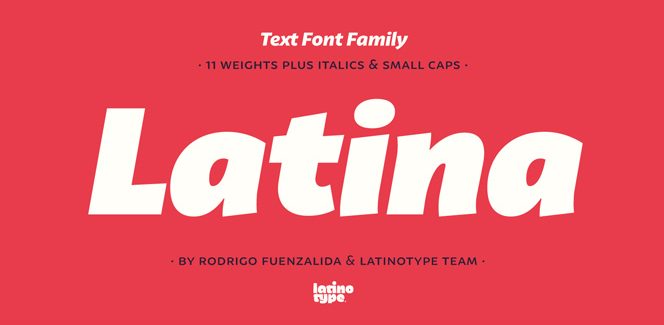
Latina font family – another typographic lesson by Latinotype
It is safe to say that now the admirers of the type design art are living in something like a golden age. The fast development of technology has led to a significant rise of the interest in typography and the great chance to witness the work of countless designers and foundries. However, there are some foundries that have turned their names into a guaranty for the quality of their work. One such foundry is the famous Chile based Latinotype. Its designers are renowned for their talent and professionalism but we think that the most remarkable side of their work is the way they work as a team.
Their last release – Latina font family, is another example of their team spirit. It is designed by Rodrigo Fuenzalida with the help of the whole team. It is a typeface designed especially for continuous reading and longer texts. Although that its forms are obviously inspired by some calligraphic samples, this influence is subjected to the desire to make Latina as neutral, highly legible and elegant as possible. Still, this combination between calligraphy and geometry gives the font family its unique forms and make it look like a lesson in typography in terms of its appearance. But, as we all know, the look is not the only important issue in the modern times. Fuenzalida supplies 11 weights – Thin, Ultra Light, Light, Regular, Medium, Semi Bold, Bold, Ultra Bold, Black, Heavy and Ultra Heavy, all with their respective Italics, and provides support for 219 languages. The typeface is packed with OpenType features and forms like Small Caps, Ordinals, Discretionary ligatures, Superiors and Inferiors, Numerators, Denominators, Currency symbols, Tabular figures, Oldstyle figures, etc.